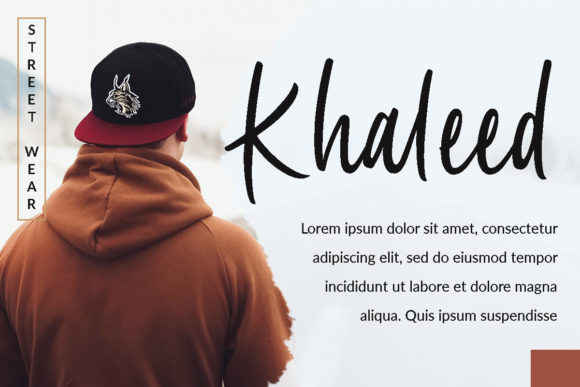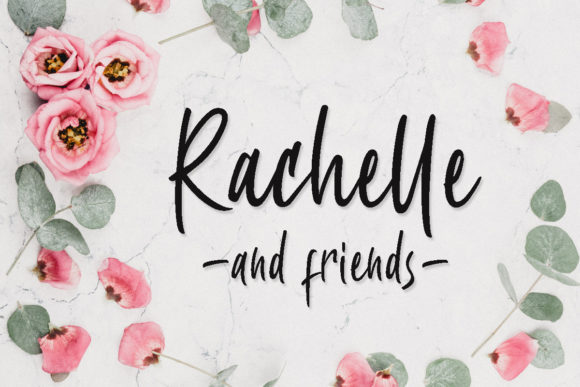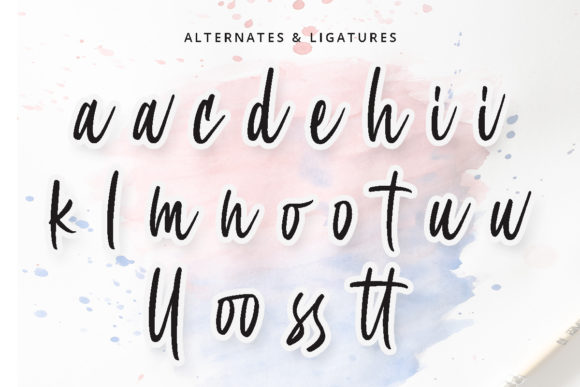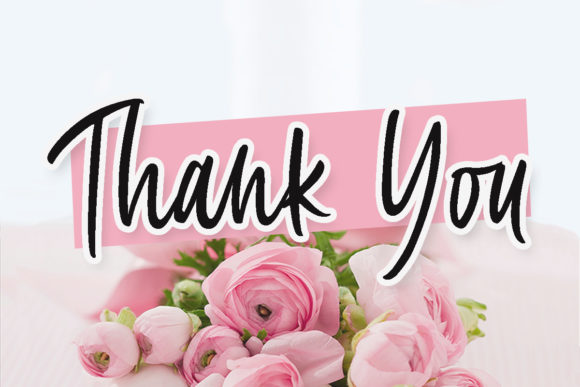
Introduction to Julitta Font
Have you ever found yourself stuck in a design rut, yearning for a font that exudes timeless elegance and sophistication? As a designer, you know how a single element can elevate your creative project from ordinary to extraordinary. For me, that moment came when I stumbled upon the enchanting Julitta Font. Its beautiful combination of classic style and friendly feel was the perfect solution to my design dilemma.
As a valuable resource for designers, Julitta Font offers a high-quality, authentic calligraphy experience that’s hard to find. With its transparent background and versatility, it’s the perfect tool for creating original and outstanding designs. Whether you’re working on a branding project or a personal creative endeavor, Julitta Font is sure to inspire your next masterpiece. And the best part? It’s available for free download, making it an accessible design resource for designers of all levels.
Key Features of Julitta Font
- High-quality design resource ideal for creative projects, with a unique and elegant style.
- Features a transparent background, making it perfect for overlaying on images or using as a watermark.
- Designed with a high-resolution (300 DPI) and scalable format, ensuring crisp and clear text display.
- Includes a range of characters, including Latin and Cyrillic alphabets, making it suitable for multilingual projects.
- Supports various font sizes and styles, allowing for versatility in design applications.
- Perfect for creative professionals and hobbyists alike, offering a valuable addition to any design resource library.
Honest Review: Julitta Font
I recently had the chance to work with Julitta Font on a creative project, and I was impressed with its quality and versatility. The font is available for free download, which is a definite plus for designers on a budget.
Here are some things that work well with Julitta Font:
- High-quality design: The font is well-crafted and has a professional look.
- Transparency: Julitta Font supports transparent backgrounds, making it easy to use in creative projects.
- Flexibility: The font is available in multiple weights and styles, giving designers plenty of options.
- ⚠️ Limited language support: Julitta Font may not support all languages, which could be a problem for designers working on international projects.
- ⚠️ Not suitable for all designs: The font’s style may not be suitable for all types of designs, such as technical or academic projects.
Overall, I’m impressed with Julitta Font as a design resource. While it may not be perfect, it’s a high-quality font that’s perfect for many creative projects. With its transparent background and free download, it’s definitely worth considering for your next design project.
Julitta Font
Tips for Getting the Most Out of Julitta Font
For a high-quality design, use Julitta Font on a transparent background to create a seamless and modern look. You can also experiment with different font sizes and colors to add visual interest to your project.
Julitta Font is a versatile design resource that can be used for a variety of creative projects, including blog posts, social media graphics, and business presentations. Its high-quality design makes it a great choice for any project that requires a professional look.
Q: What is the quality of the Julitta Font?
The Julitta Font is a high-quality font, carefully crafted to ensure crisp and clear typography. It’s ideal for use in various design applications, from digital projects to print materials, and is a valuable addition to any designer’s toolkit.